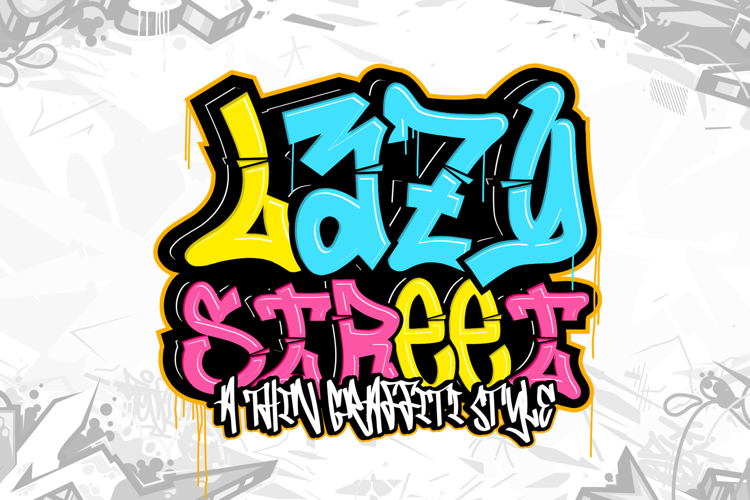
Lazy Street - Layered Graffiti Font
Bring the raw energy of street art to your designs with Lazy Street, a bold layered graffiti font that adds attitude and style to any project. With its authentic urban aesthetic and versatile design, this font is perfect for creatives looking to make a statement.
🖌️ Layered Versatility: Lazy Street features outline and extrude styles, allowing you to stack layers for dynamic 3D effects or use them independently for a clean graffiti vibe.
🎨 Urban Authenticity: Inspired by the artistry of street culture, Lazy Street combines edgy charm with a polished touch, making it ideal for posters, album covers, logos, and more.
🔥 Bold and Impactful: Its thick strokes and sharp details ensure your designs grab attention and stand out in digital and print media.
Use Lazy Street, the font that speaks the city's language, to infuse your projects with streetwise flair and creative freedom.